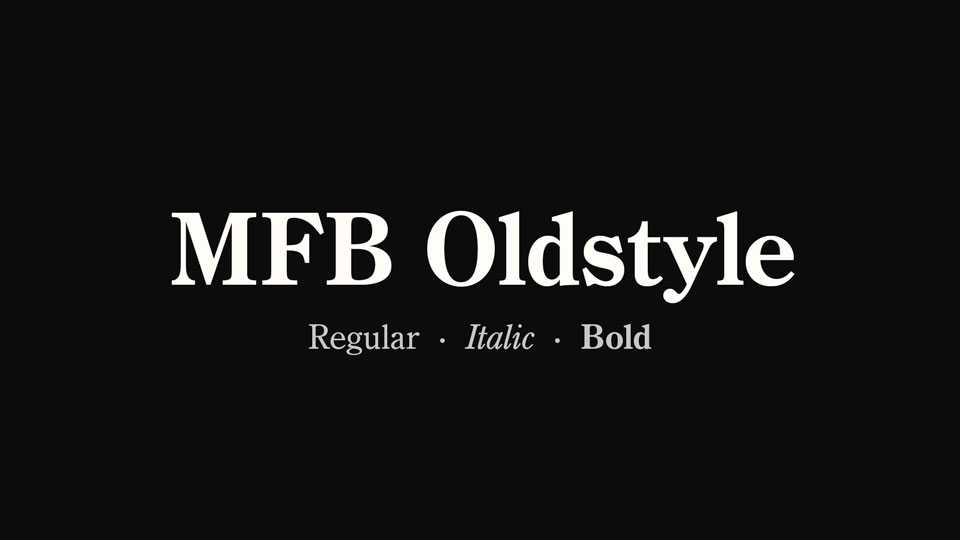
Download MFB Oldstyle font, a typeface designed for body text. This typeface was originally designed by Morris Fuller Benton and released by American Type Founders in 1909 as Century Oldstyle.
Designer: Daniel Benjamin Miller